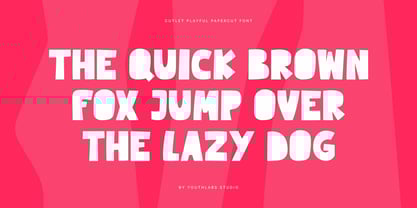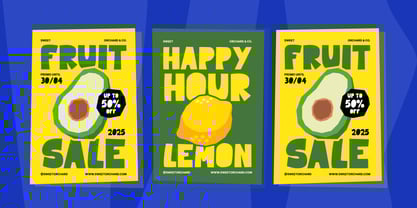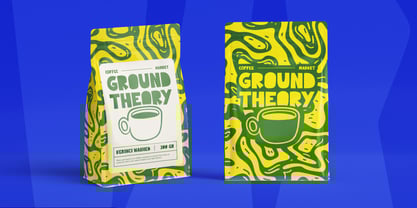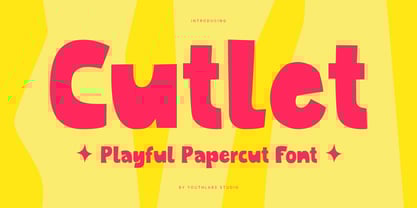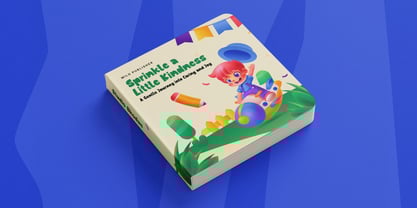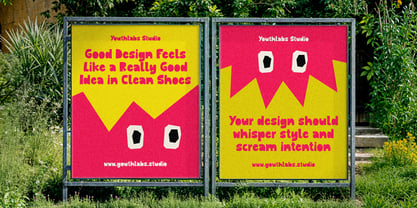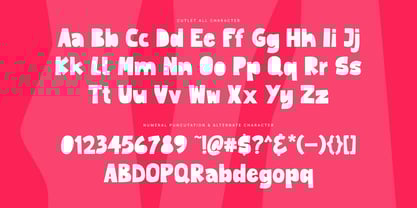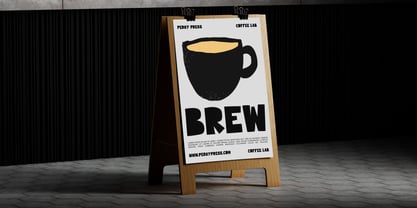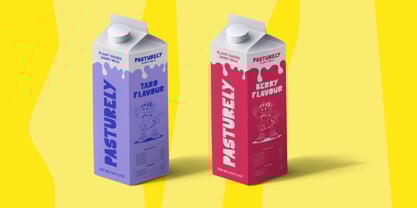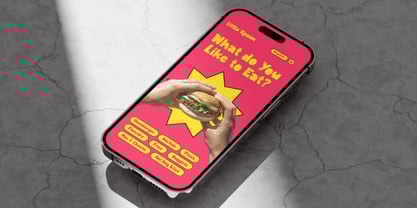
Cutlet
The Cutlet Font Family was designed by Fathi Al Ghazi and published by Youthlabs. Cutlet contains 2 styles and family package options. More about this family
Cutlet is a bold and bubbly papercut-style font that brings joy to every word you type. With its quirky edges and playful character shapes, Cutlet feels handmade, happy, and full of life. Perfect for children's books, creative branding, fun packaging, and cheerful social media graphics, this font adds a burst of personality to any project. Whether you're designing for kids or simply want to spread good vibes, Cutlet makes your message pop with charm and delight.